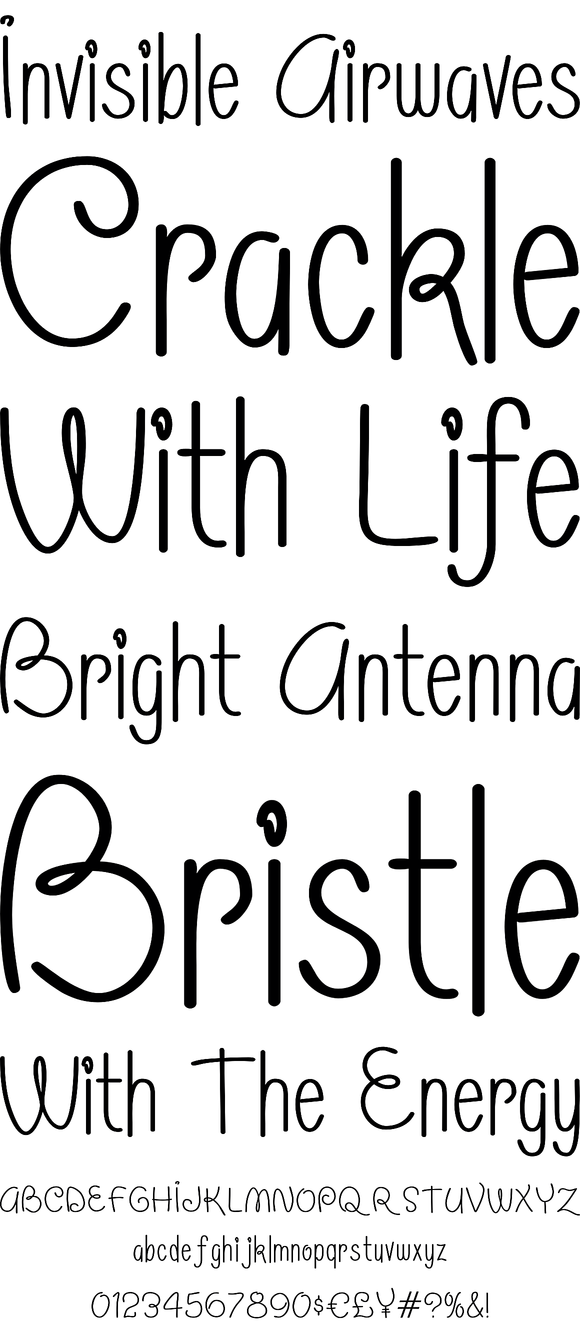
Morning Limerick
Foundry: Breaking The Norm
Morning Limerick is a playful textual typefaceflowing with curls and loops, yet easily and cleanly readable. It's variants include that of weight and widths from condensed to wide, allowing it to be highly versatile for all sorts of settings both mature and childish.